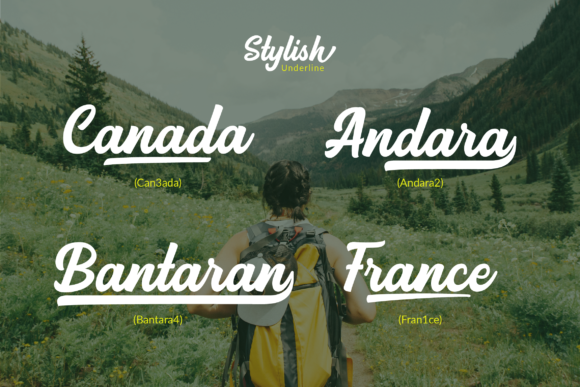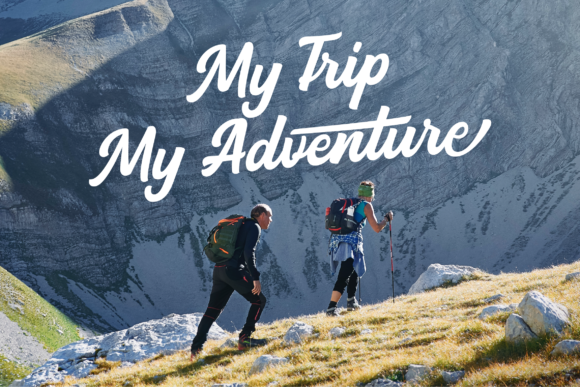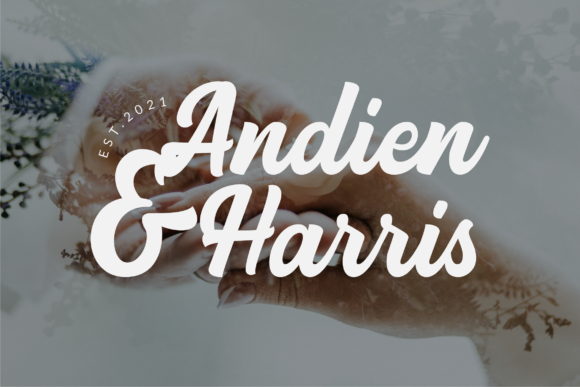
Backstone is a daring handwritten font created with brush pen strokes. This bold font will beautify and emphasize your design. Add it confidently to your projects, and you will love the results.
Backstone Font